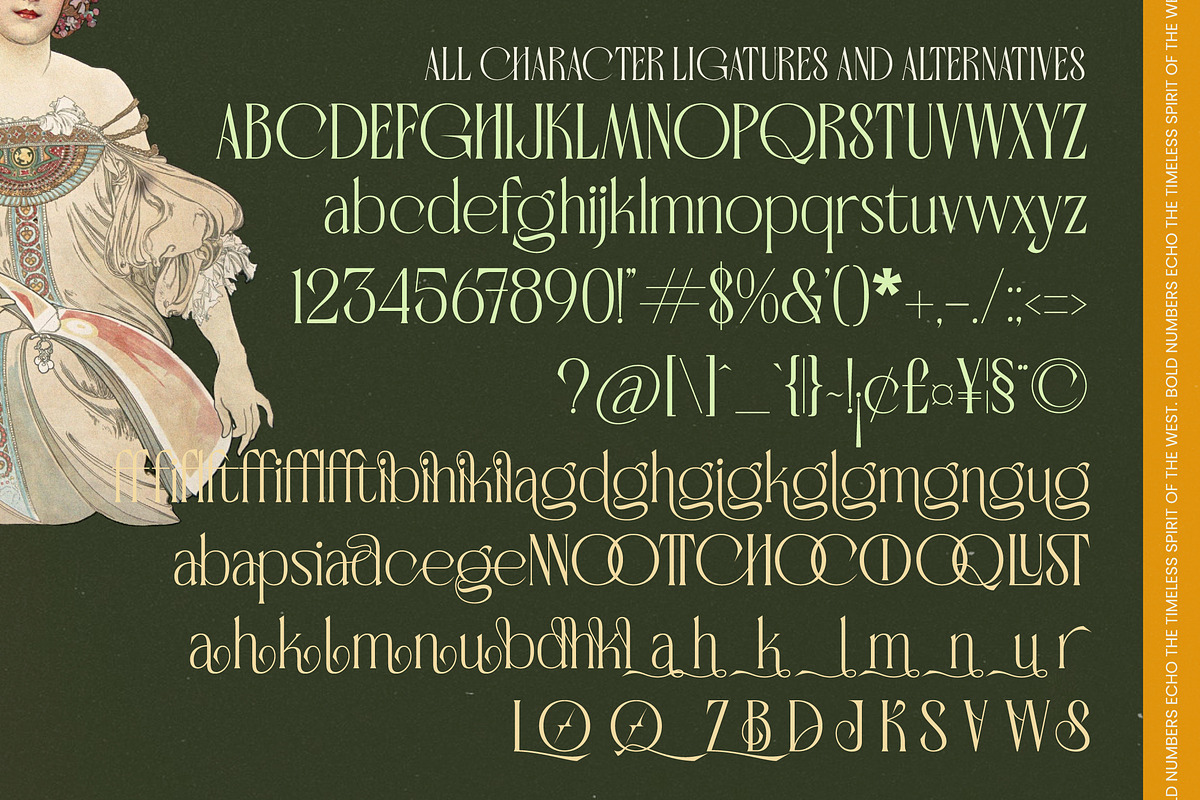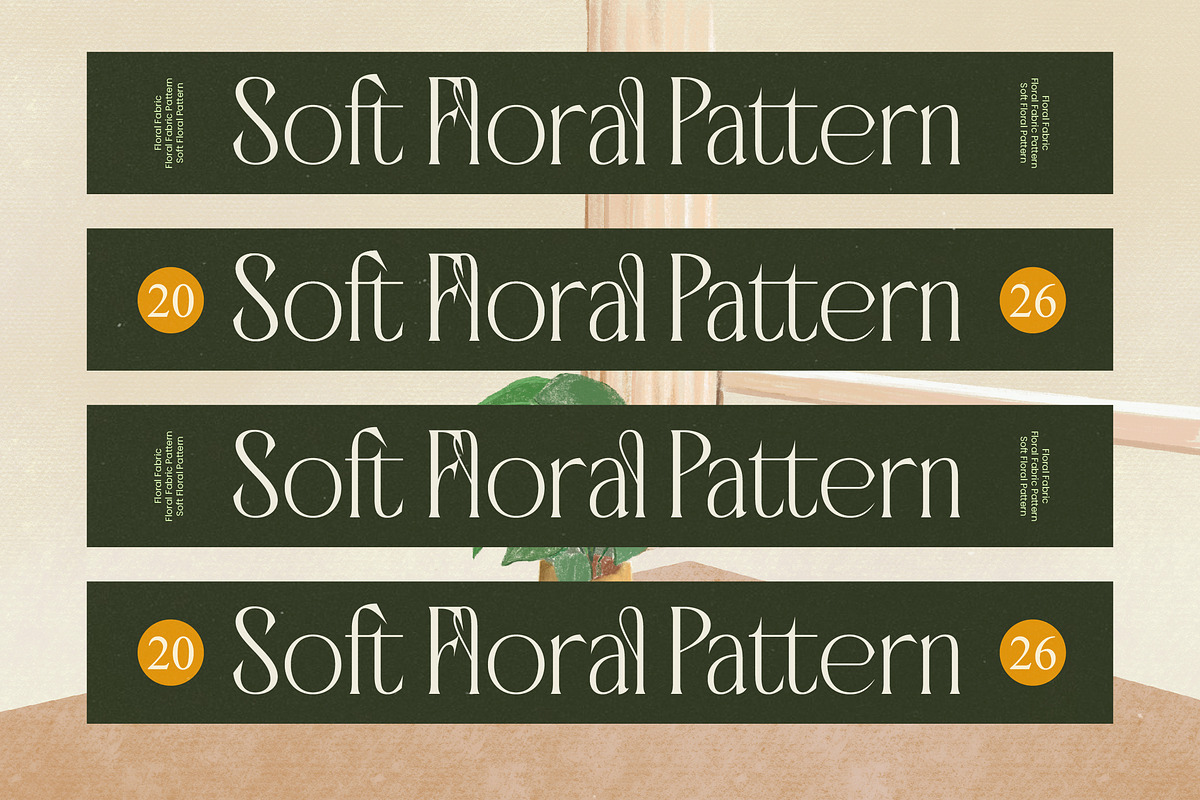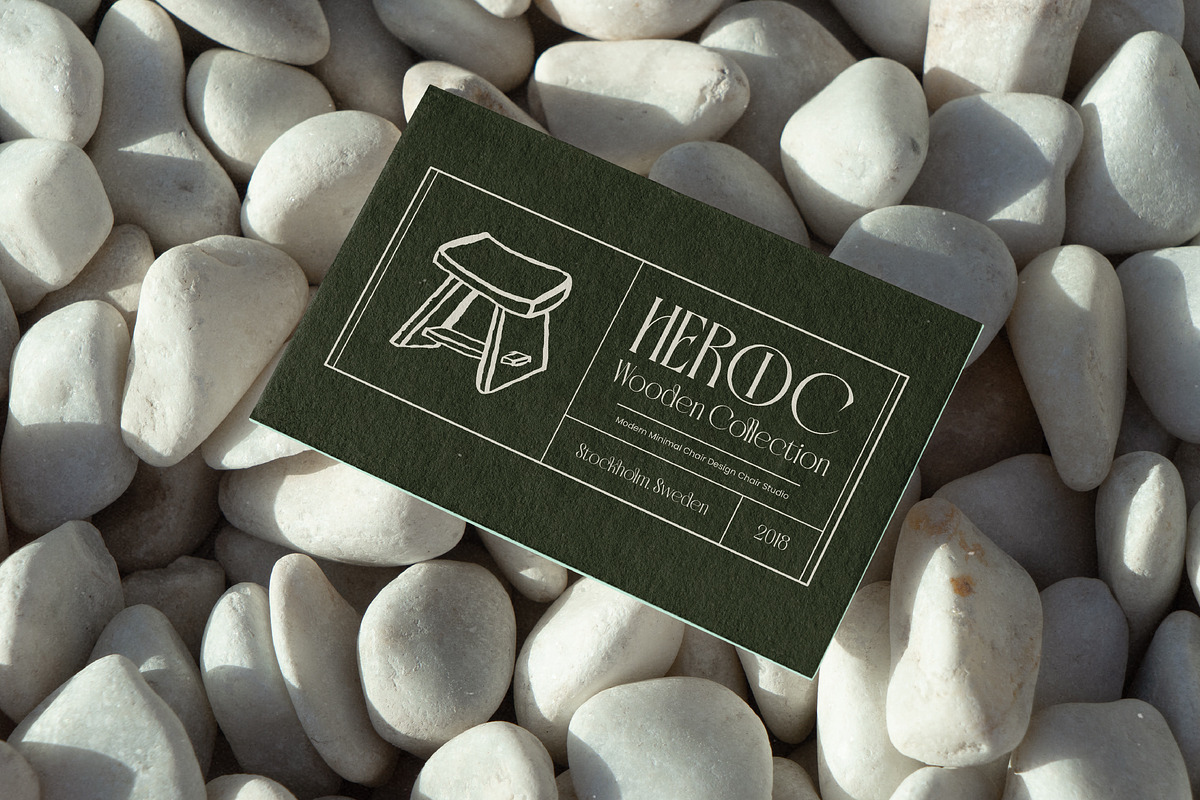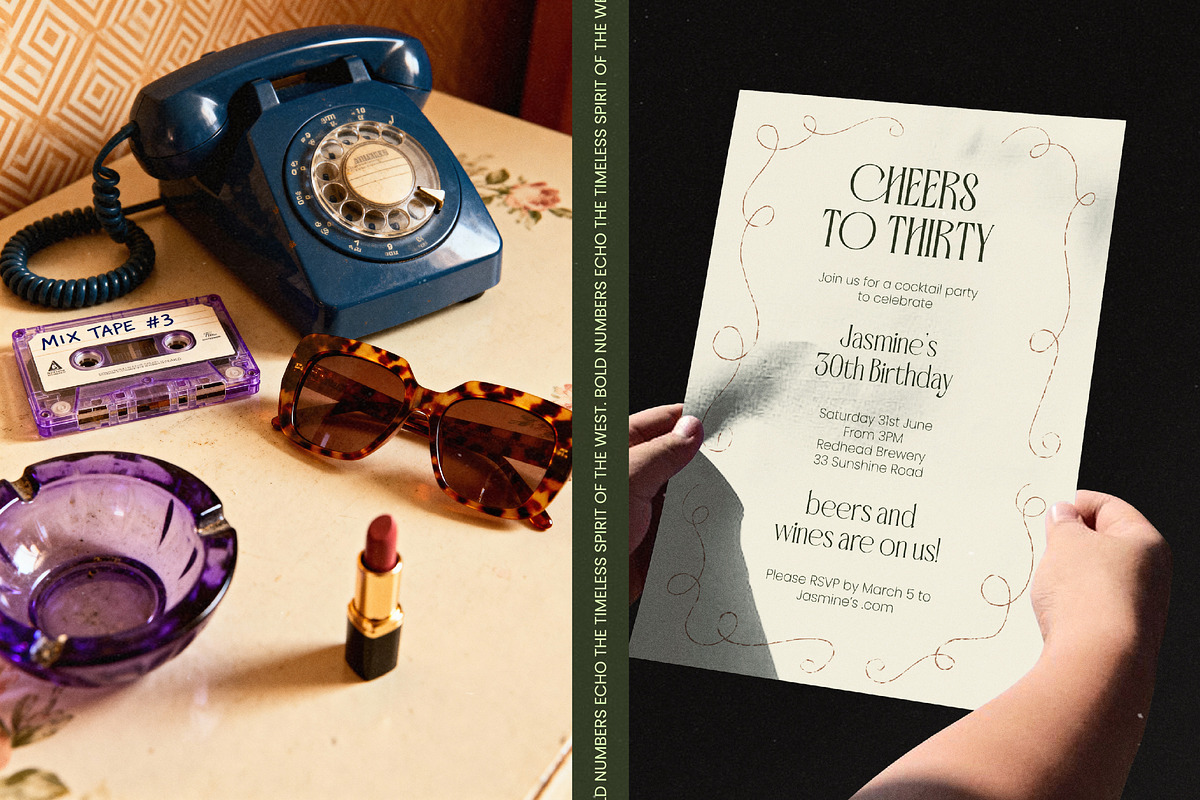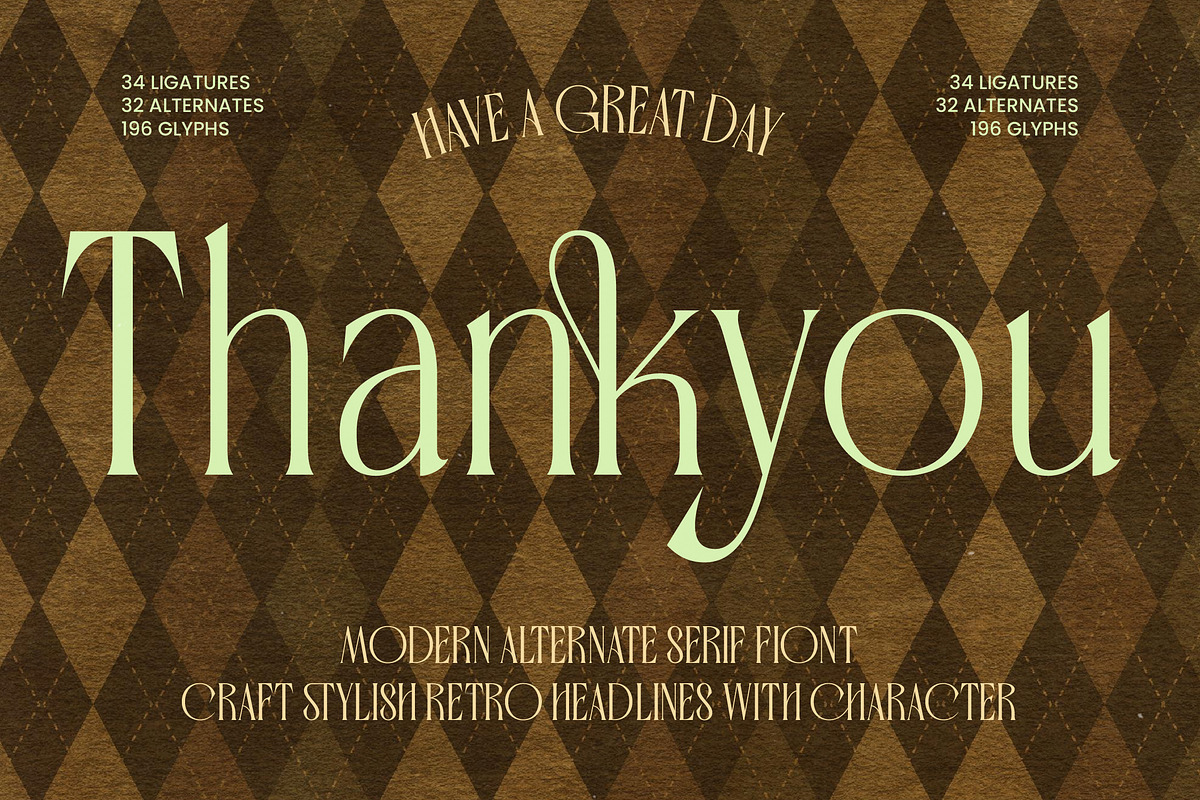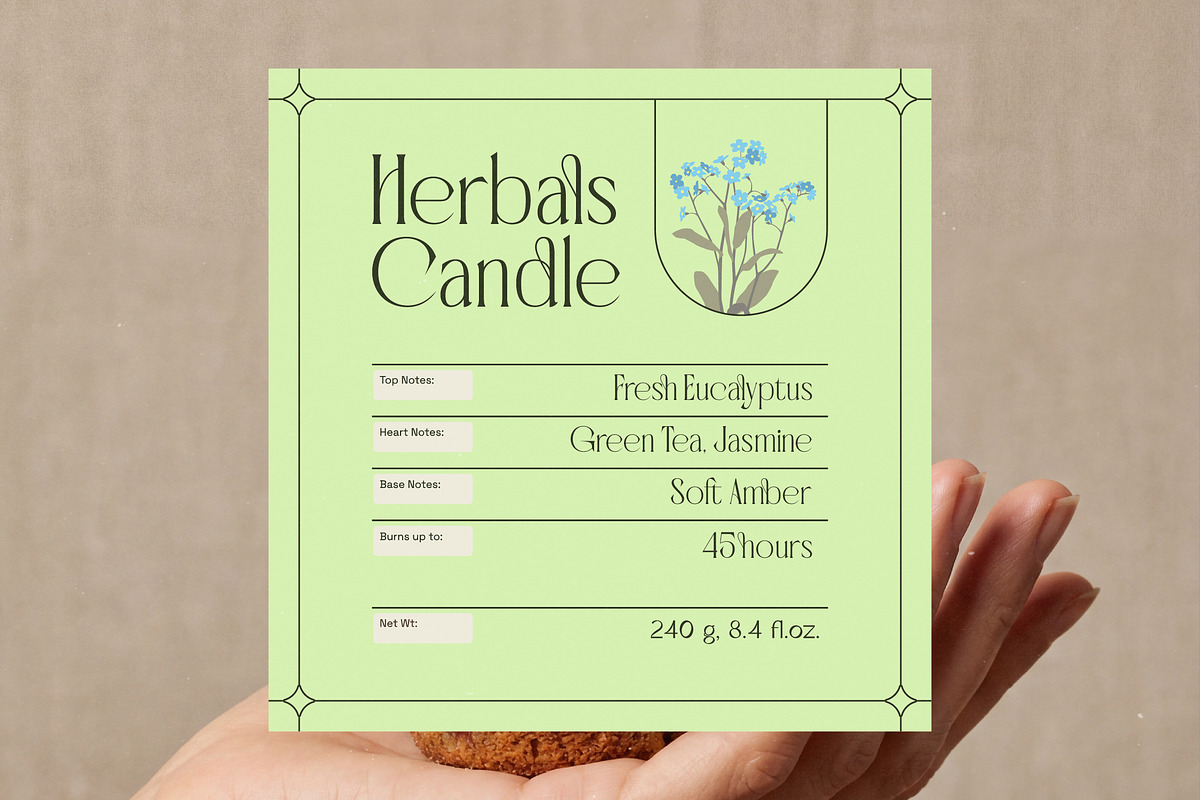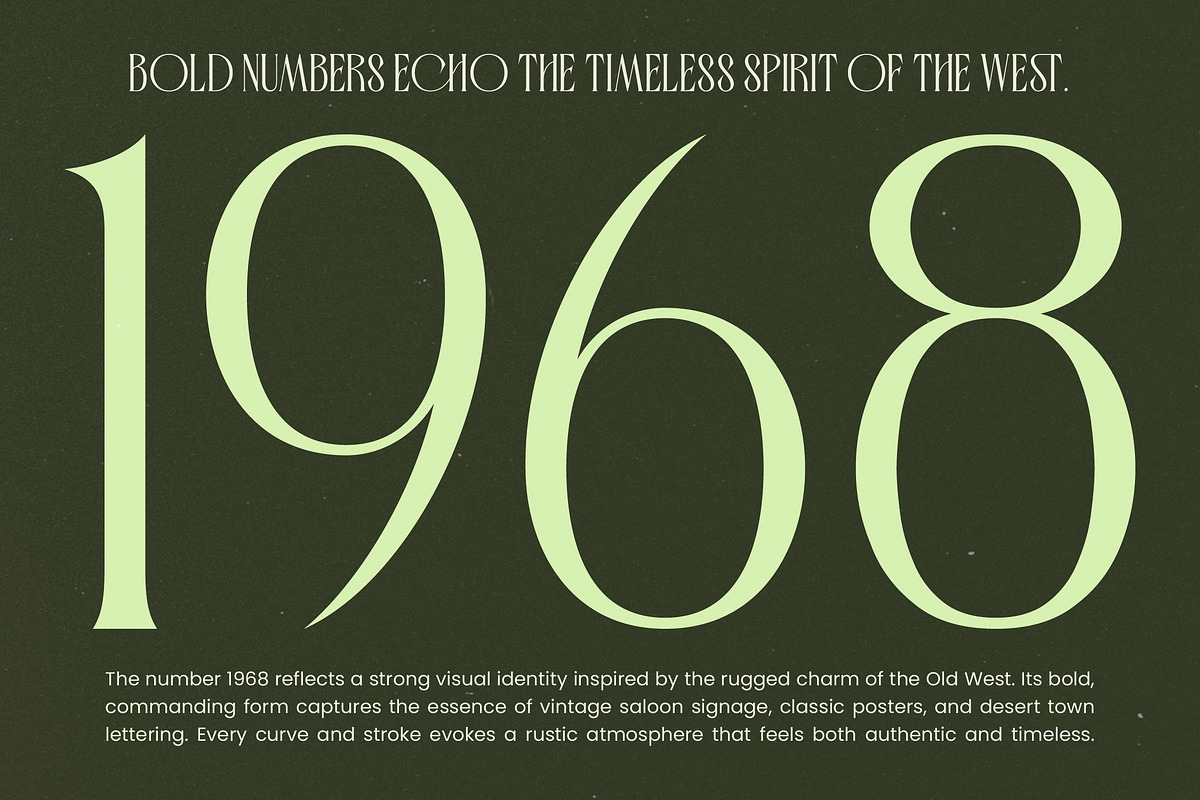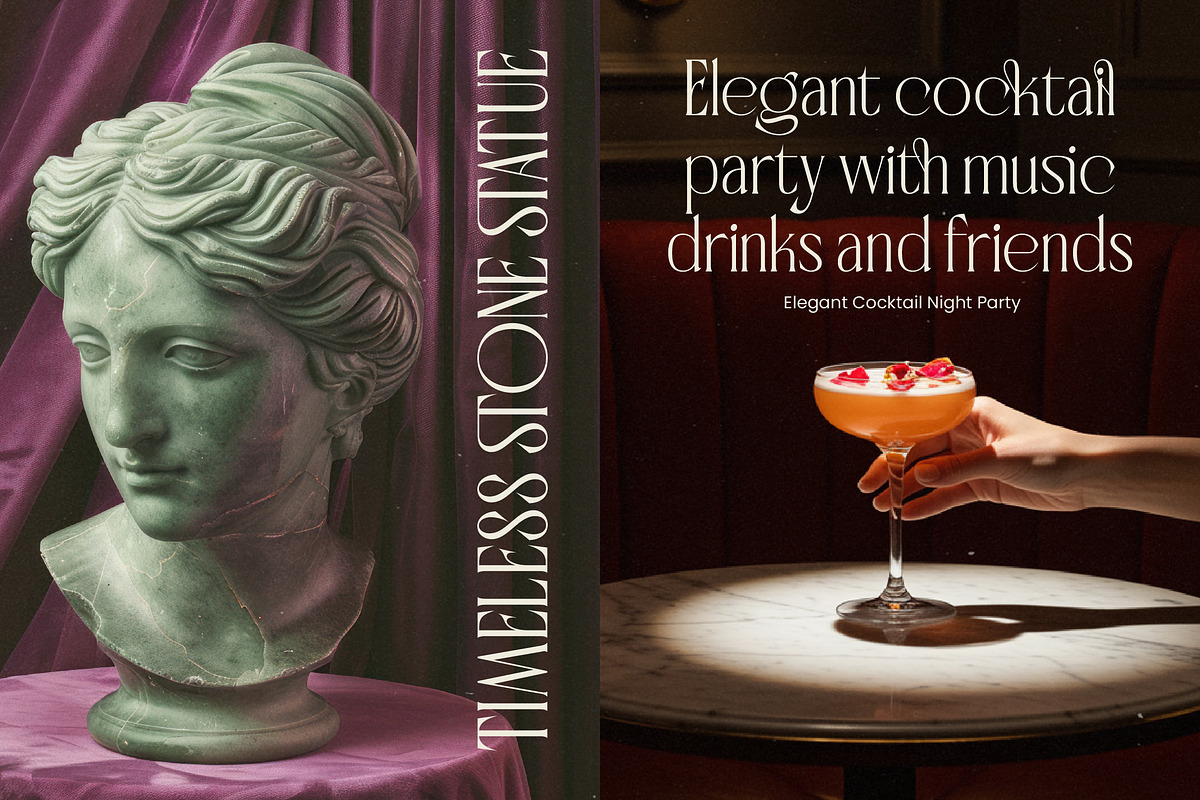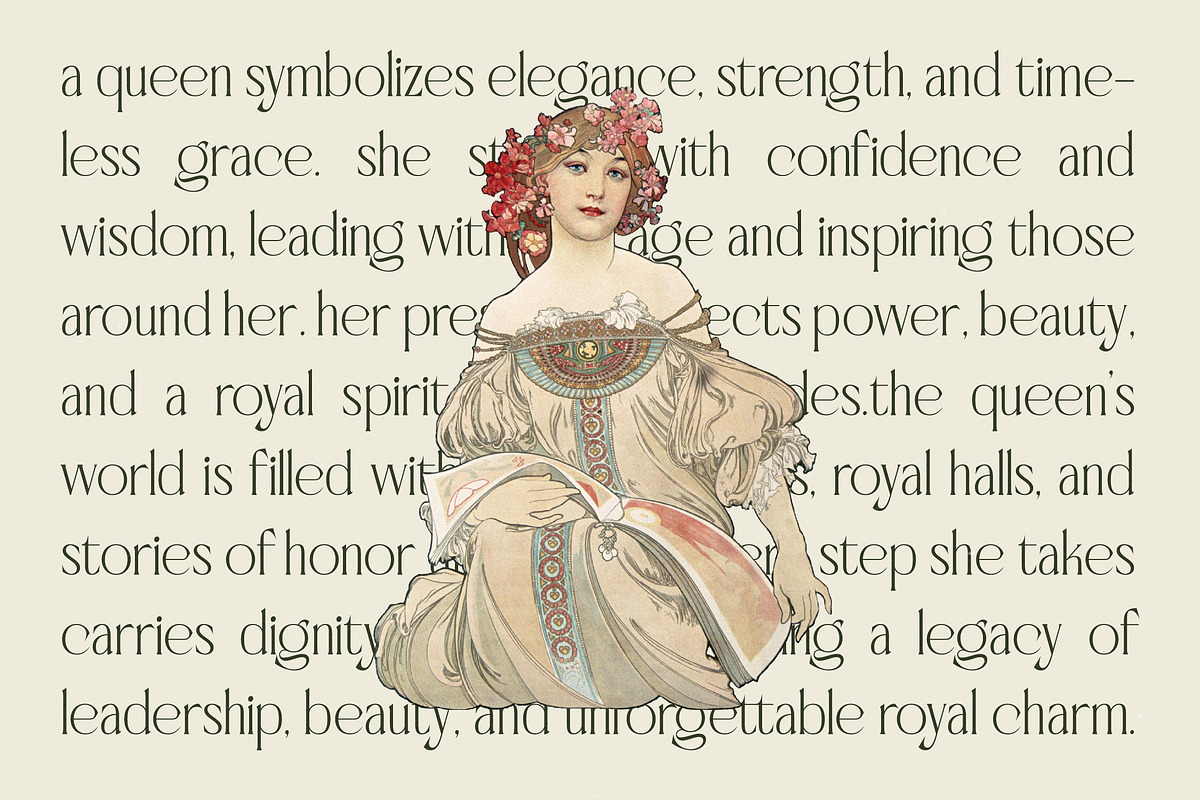
Badgeils Modern Alternate Serif
Badgeils - Modern Alternate Serif Font , Badgeils is a masterclass in visual storytelling, blending the untamed spirit of the Old West with the refined elegance of Art Nouveau. It captures an ethereal yet grounded aesthetic that demands attention and breathes life into every composition it touches.
Inspired by the rugged charm of vintage saloon signage and the intricate curves of 19th-century posters, this font was born from a desire to bridge the gap between historical grit and modern sophistication. Every stroke evokes a rustic atmosphere that feels both authentically timeless and strikingly fresh for today’s discerning designers.
This modern serif display is designed for those who seek to make a bold statement through luxury typography. With its high-contrast serif structures and sweeping curves, it provides an unparalleled branding impact while maintaining the poise of a classic editorial font.
Tapping into the current modern serif trend, this typeface is the perfect answer for projects requiring character-driven typography. It stands out among standard editorial display fonts by offering a unique silhouette that balances nostalgia with contemporary flair, ensuring your work remains ahead of the curve.
Whether you are crafting a high-end logo design or developing a cohesive branding identity, this font excels in editorial layouts and luxury packaging. Its versatile nature makes it equally at home in sophisticated wedding invitations or avant-garde fashion magazines.
Packed with professional features, this collection includes 34 ligatures and 32 alternates to give your designs a custom, hand-lettered feel. The extensive set of swashes and multilingual support for international characters ensures that your creative vision is never limited by technical boundaries.